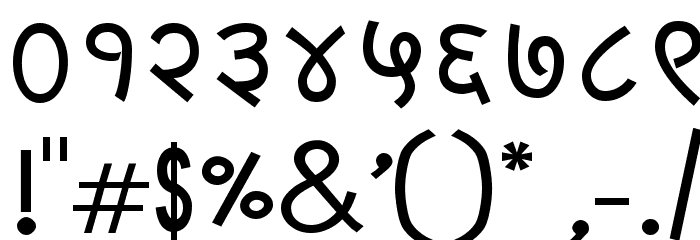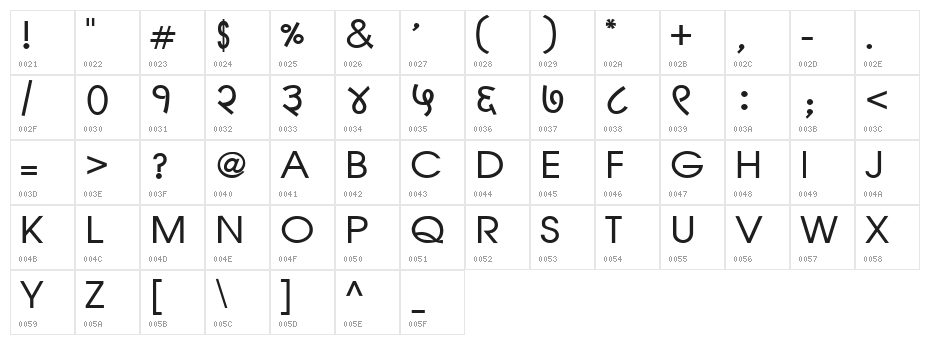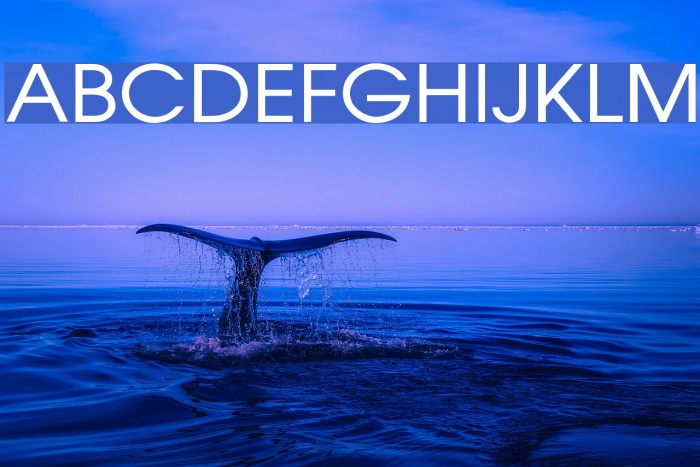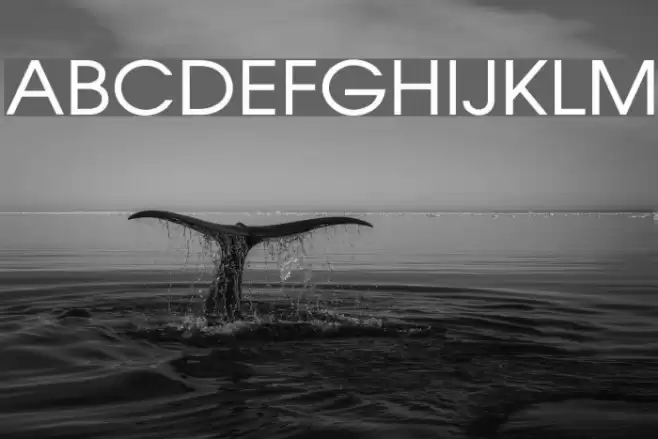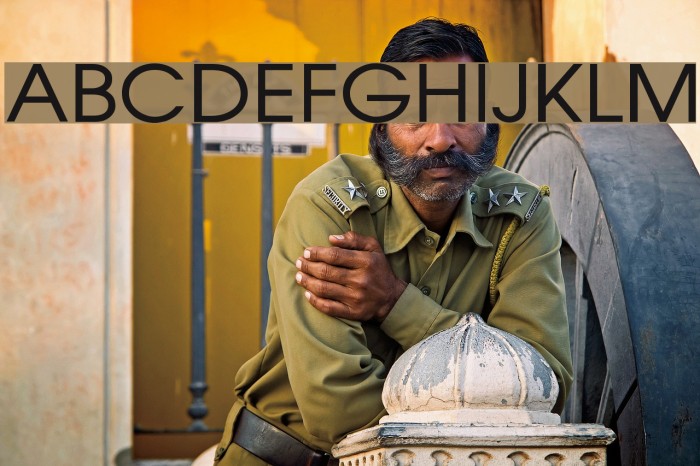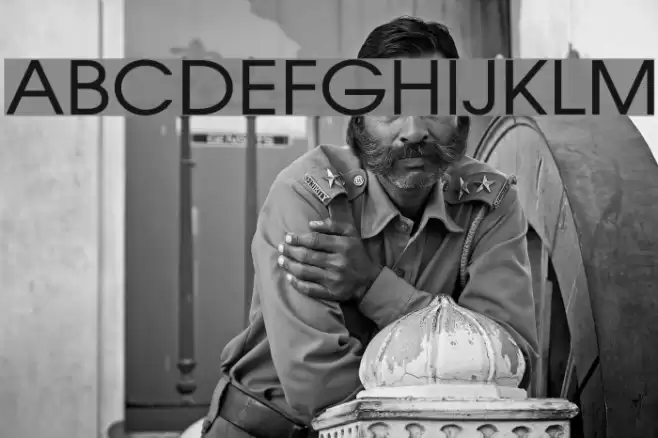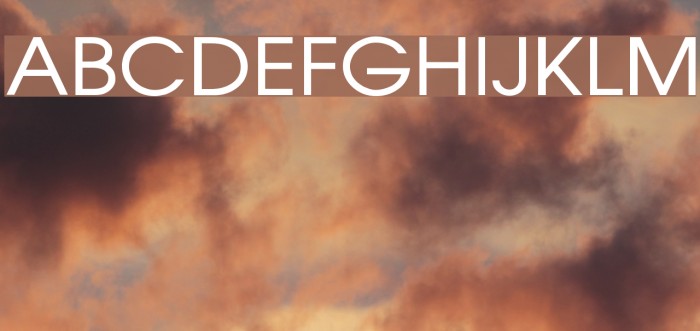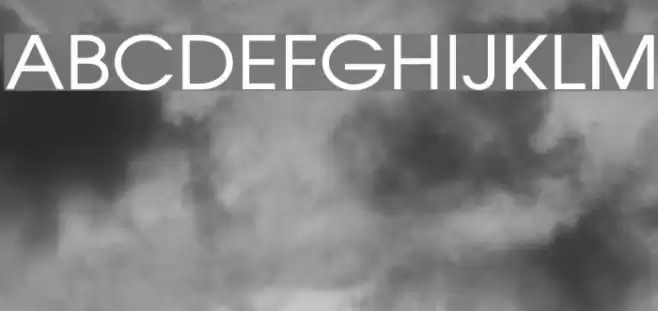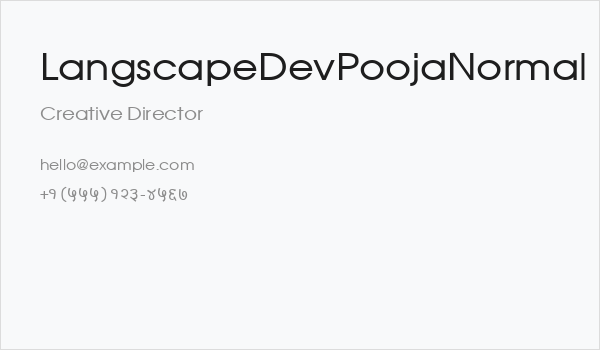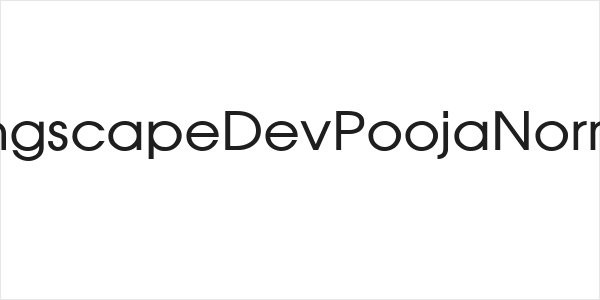
LangscapeDevPoojaNormal Font
LangscapeDevPoojaNormal Description
This font features a clean, modern sans-serif design with smooth, rounded edges and a uniform stroke width. The characters are well-balanced, offering a harmonious appearance that is both approachable and professional. The uppercase letters are bold and assertive, while the lowercase letters maintain a friendly and accessible feel. The numerals are distinct and easy to read, with a slight geometric influence that adds a contemporary touch. Special characters are crafted with the same attention to detail, ensuring consistency across all glyphs. This font's simplicity and clarity make it versatile for various design applications.